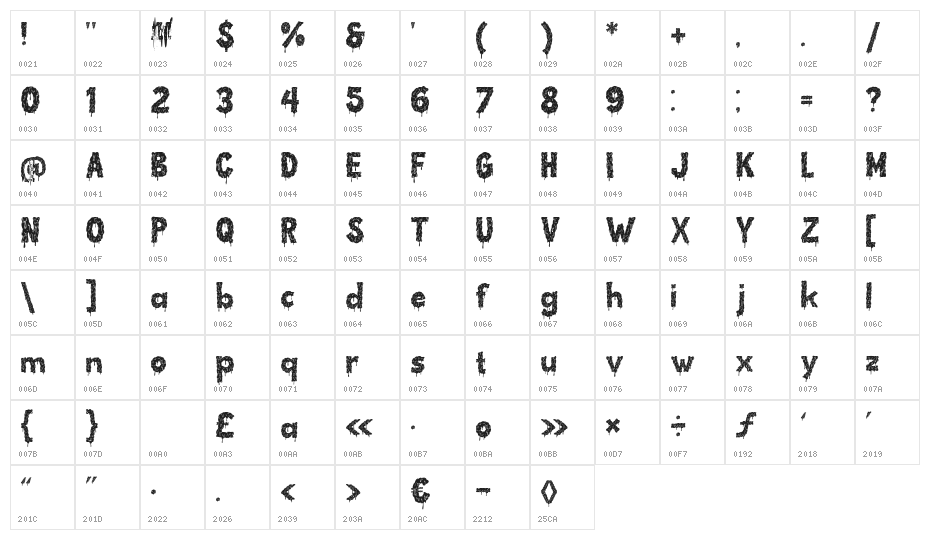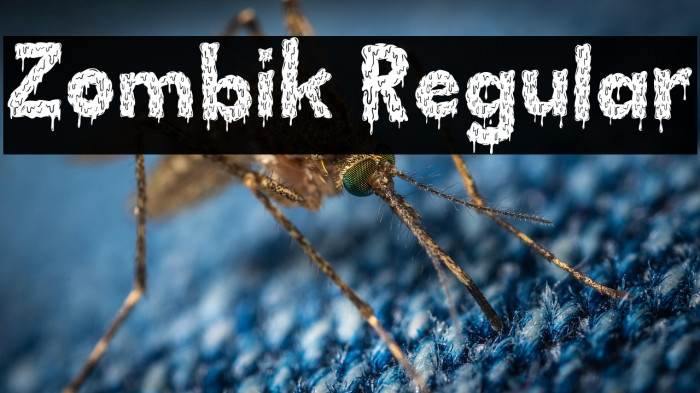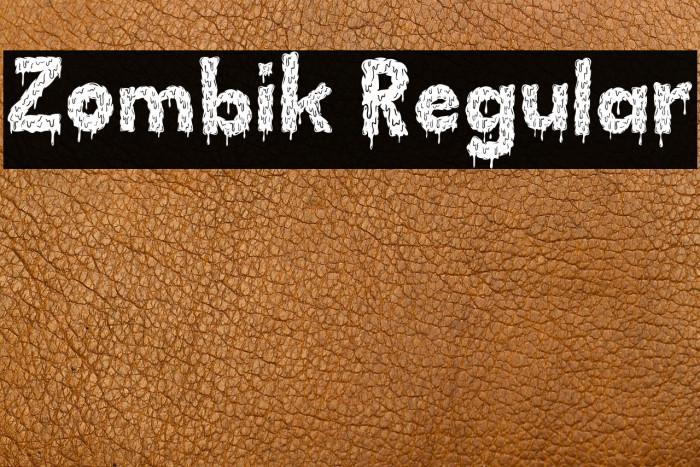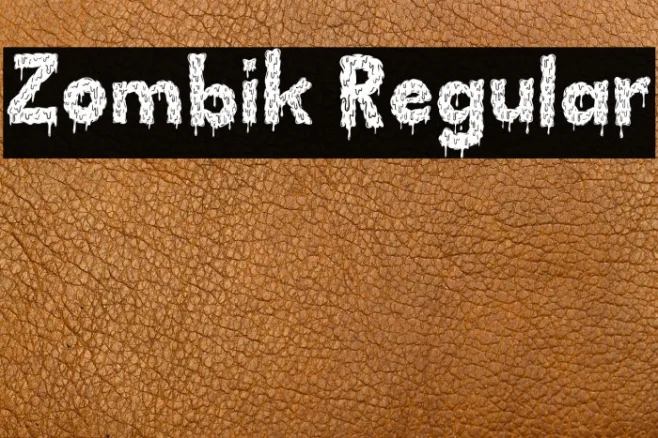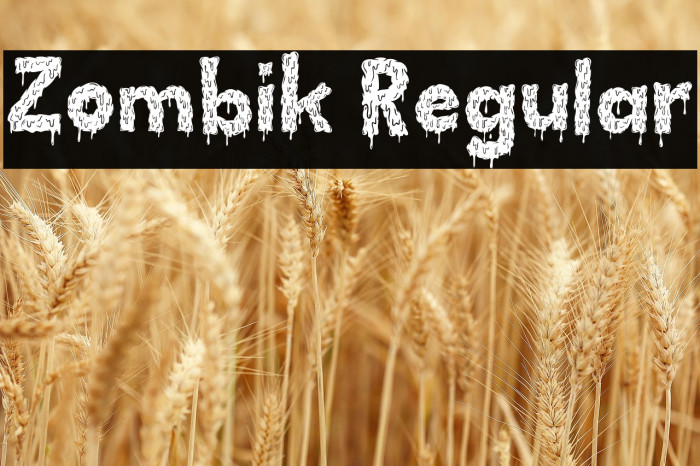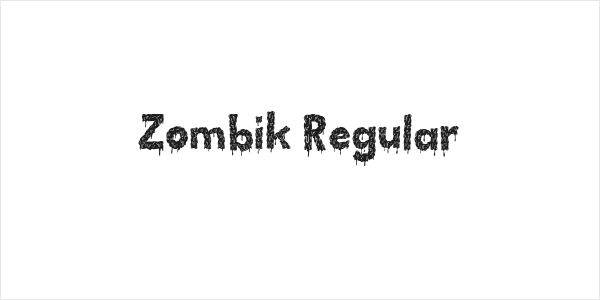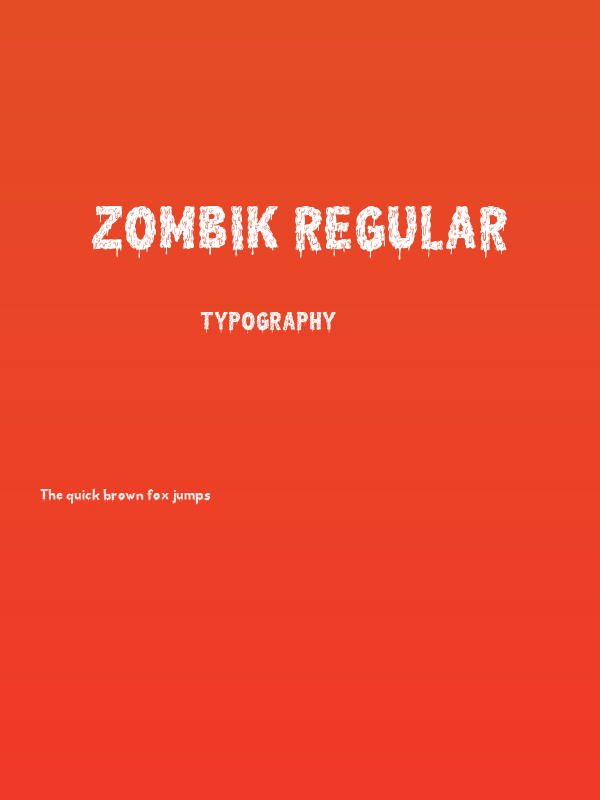
Zombik Regular Font
Zombik Regular Description
This font features a unique, dripping design that evokes a sense of horror and playfulness. Each character appears as if it's melting or oozing, with irregular edges and a textured appearance that adds depth and interest. The uppercase and lowercase letters maintain a consistent style, with the same dripping effect applied to numbers and special characters. This font is perfect for creating a spooky or eerie atmosphere, making it ideal for Halloween-themed projects or any design that requires a touch of the macabre. The bold and decorative nature of the font ensures it stands out, capturing attention with its distinctive style.
| Proposed Projects | Ideal for Halloween invitations, horror movie posters, themed party decorations, and spooky merchandise designs. |